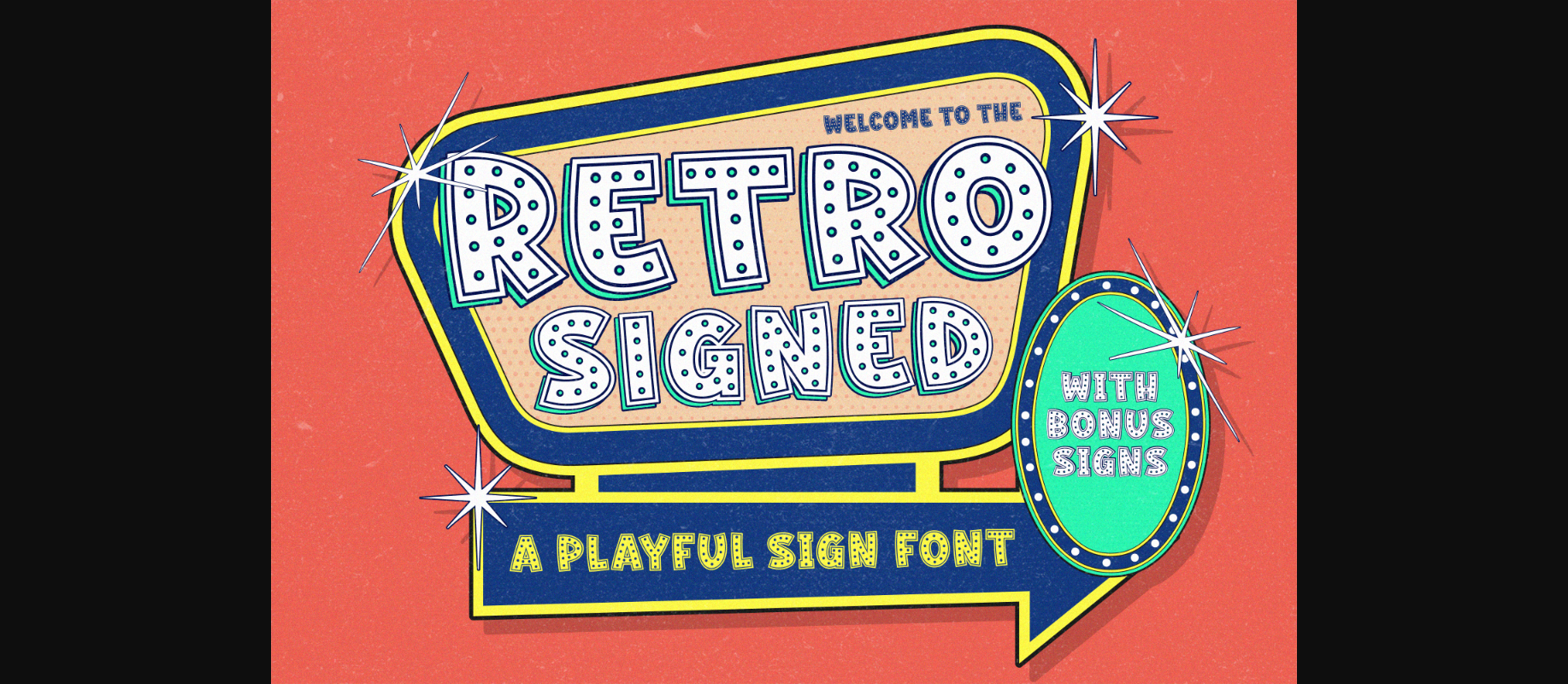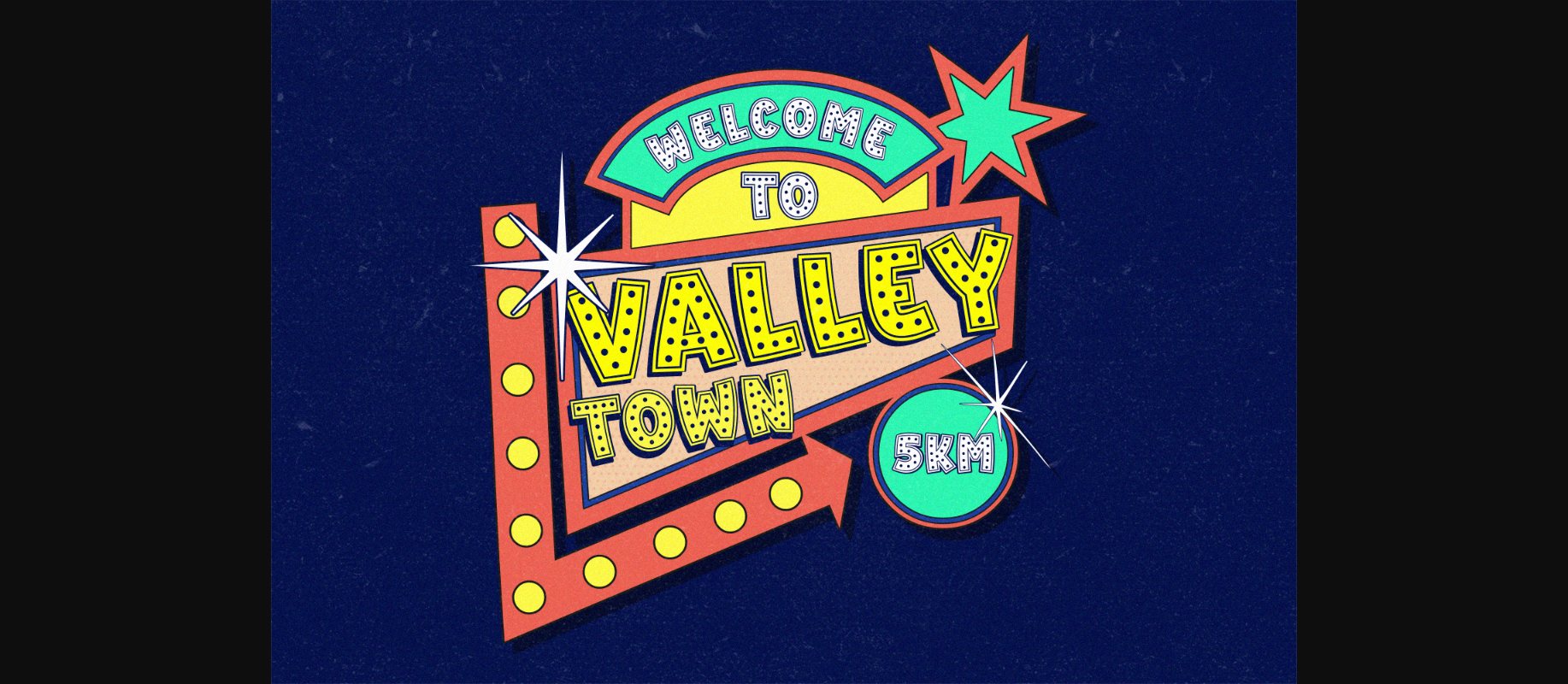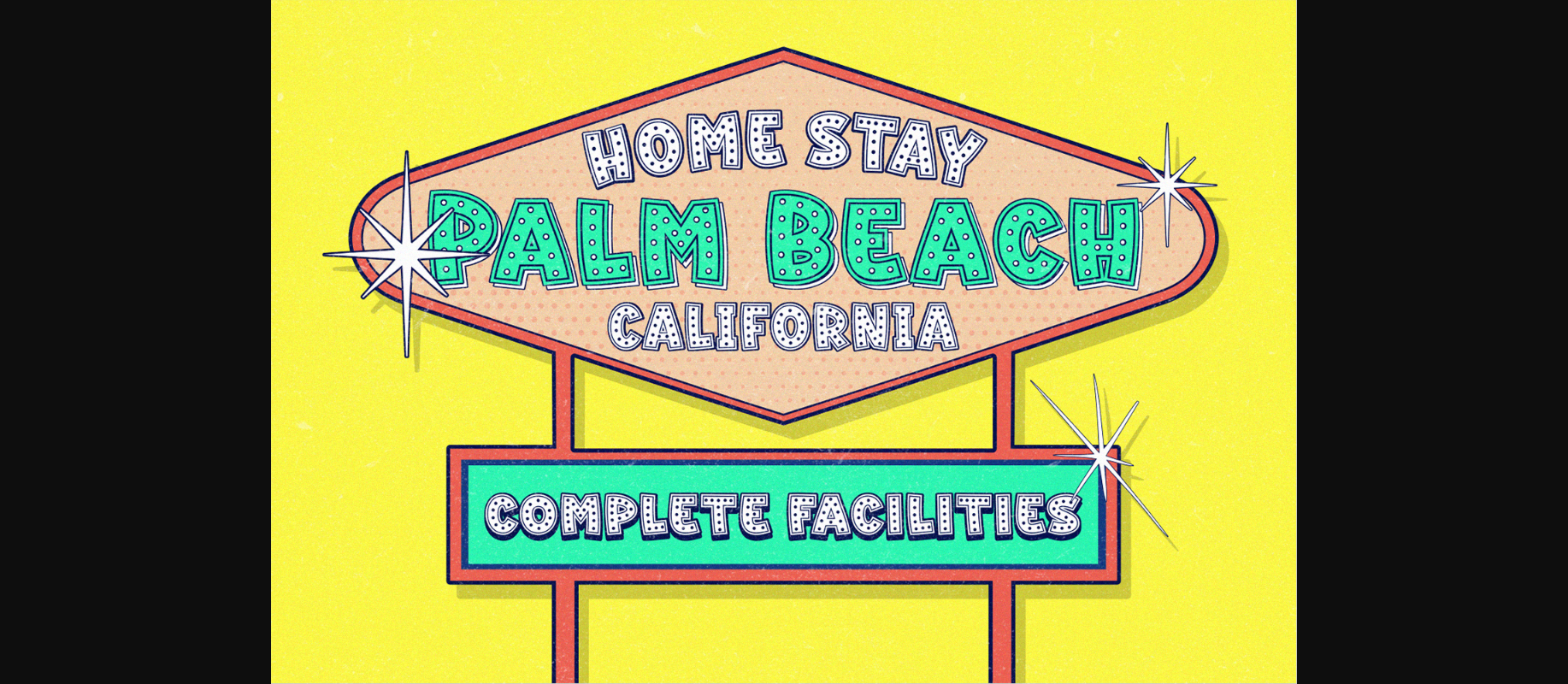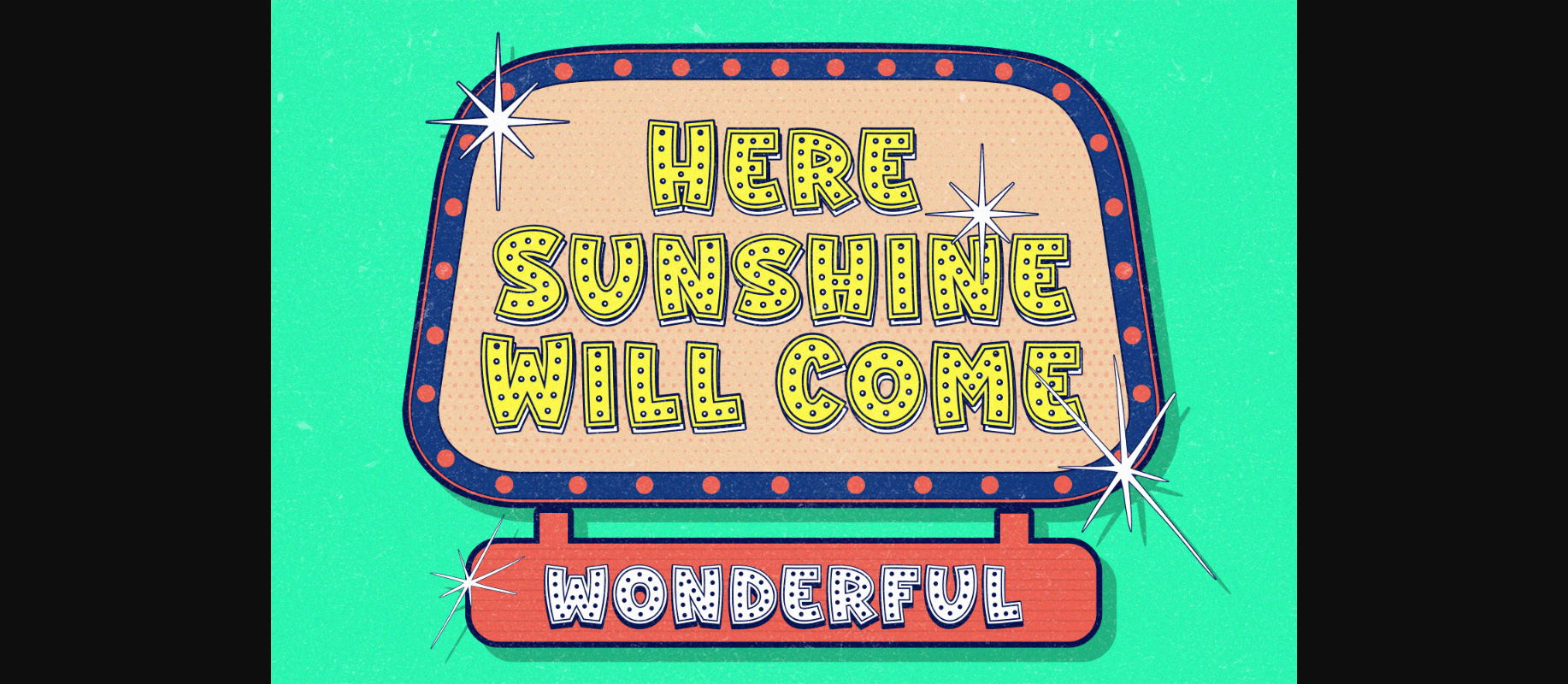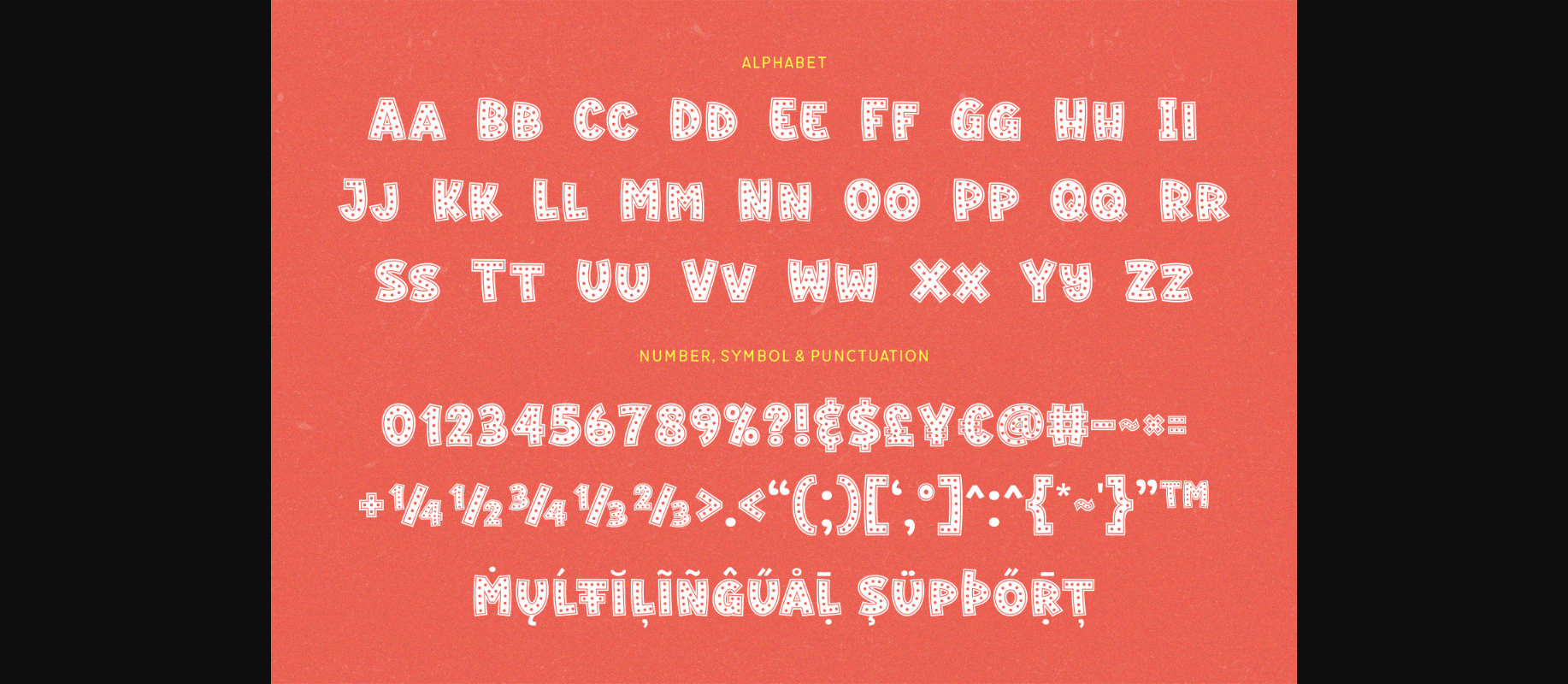
About Retro Signed Font
Experience vintage vibes with our retro and stylish decorative font. Featuring bold and playful letterforms, Retro Signed brings a touch of nostalgia to any design project. Its ornamental details and unique flair make it perfect for posters, advertisements, and branding materials that demand attention and a distinct personality.